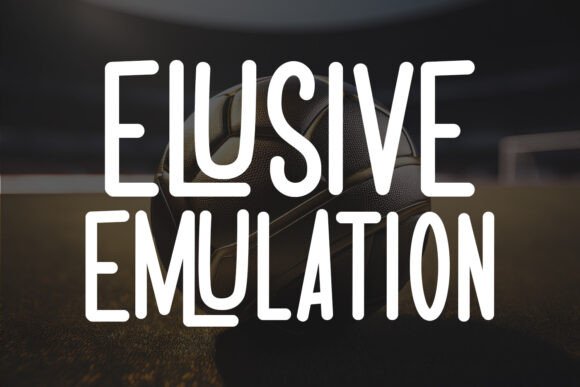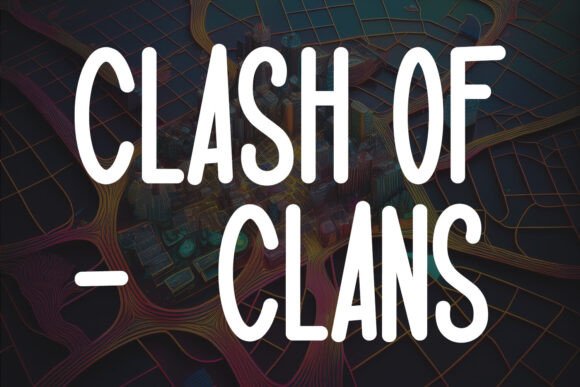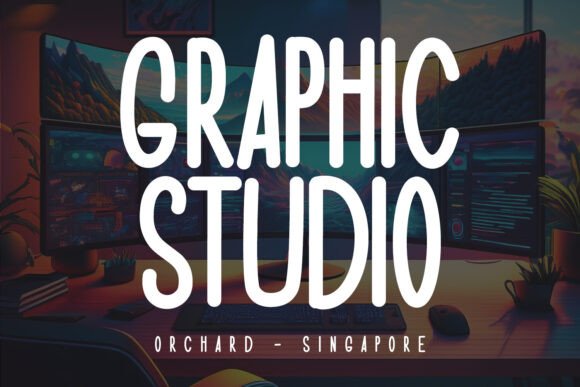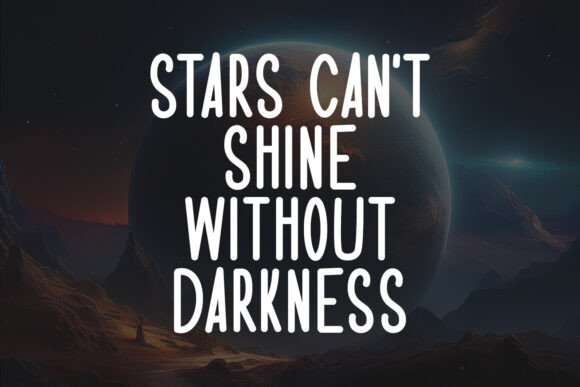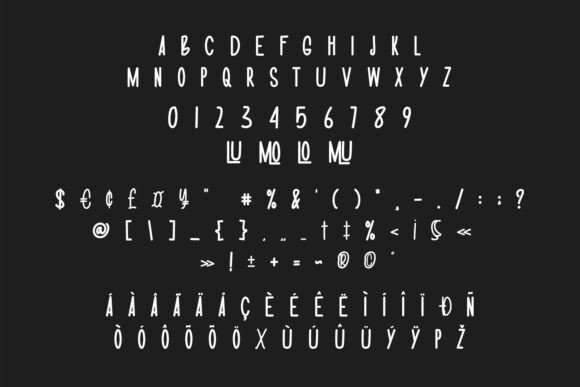
The Glutmon Font: A Timeless Sans Serif for Creative Projects
Have you ever been in the middle of a design project, and suddenly, you’re stuck on finding the perfect font? I recall a recent experience where I was working on a branding project for a client, and I just couldn’t seem to find a font that captured the essence of their brand. That’s when I stumbled upon the Glutmon font, and it completely transformed my design. In this article, we’ll dive into the world of Glutmon, exploring its features, uses, and what makes it a great addition to any designer’s toolkit.
A Personal Review of Glutmon Font
So, what makes Glutmon so special? Let’s take a closer look.
What I Love About Glutmon ✨
- ✨ Unique and Beautiful Touch: Every letter in Glutmon has a distinct character, making it perfect for creating eye-catching logos, branding, and quotes.
- ✅ Timeless Design: Glutmon’s sans serif design ensures it remains stylish and relevant, even as design trends evolve.
- ✅ Versatility: This font is suitable for a wide range of design projects, from digital graphics to print materials.
While Glutmon is an excellent font, it’s not without its limitations. Here are a few things to keep in mind:
- ⚠️ Limited Language Support: Glutmon might not support all languages, so be sure to check its compatibility before using it for multilingual projects.
- ⚠️ Glyph Limitations: Some users have reported that Glutmon’s glyph set is not as extensive as other fonts, which might limit its use in certain design contexts.
- Experiment with OpenType features, such as ligatures and stylistic alternates, to add a unique touch to your design.
The Backstory of Glutmon Font
While the origins of Glutmon are not well-documented, it’s believed to have been designed by a team of typographers who aimed to create a font that would be both timeless and versatile. Their goal was to craft a font that would add a touch of elegance and sophistication to any design project.